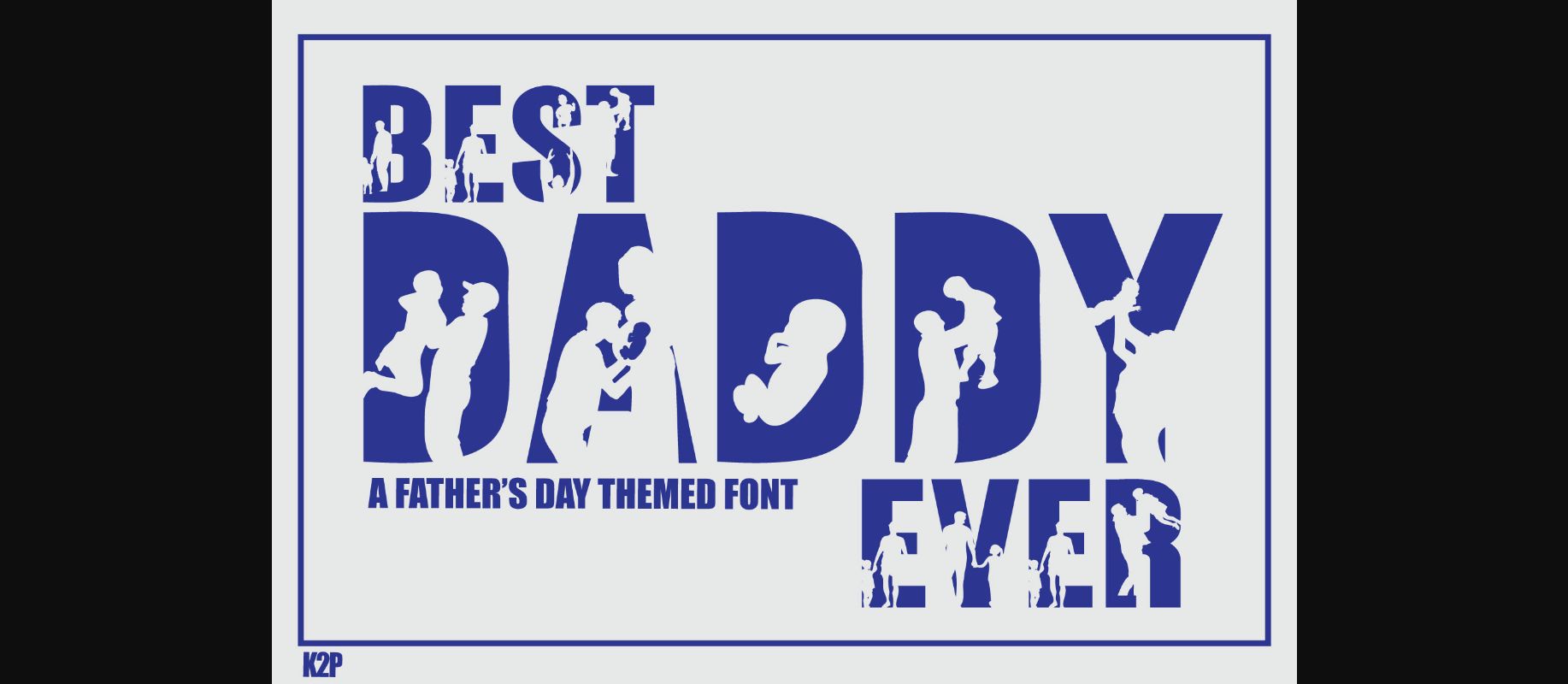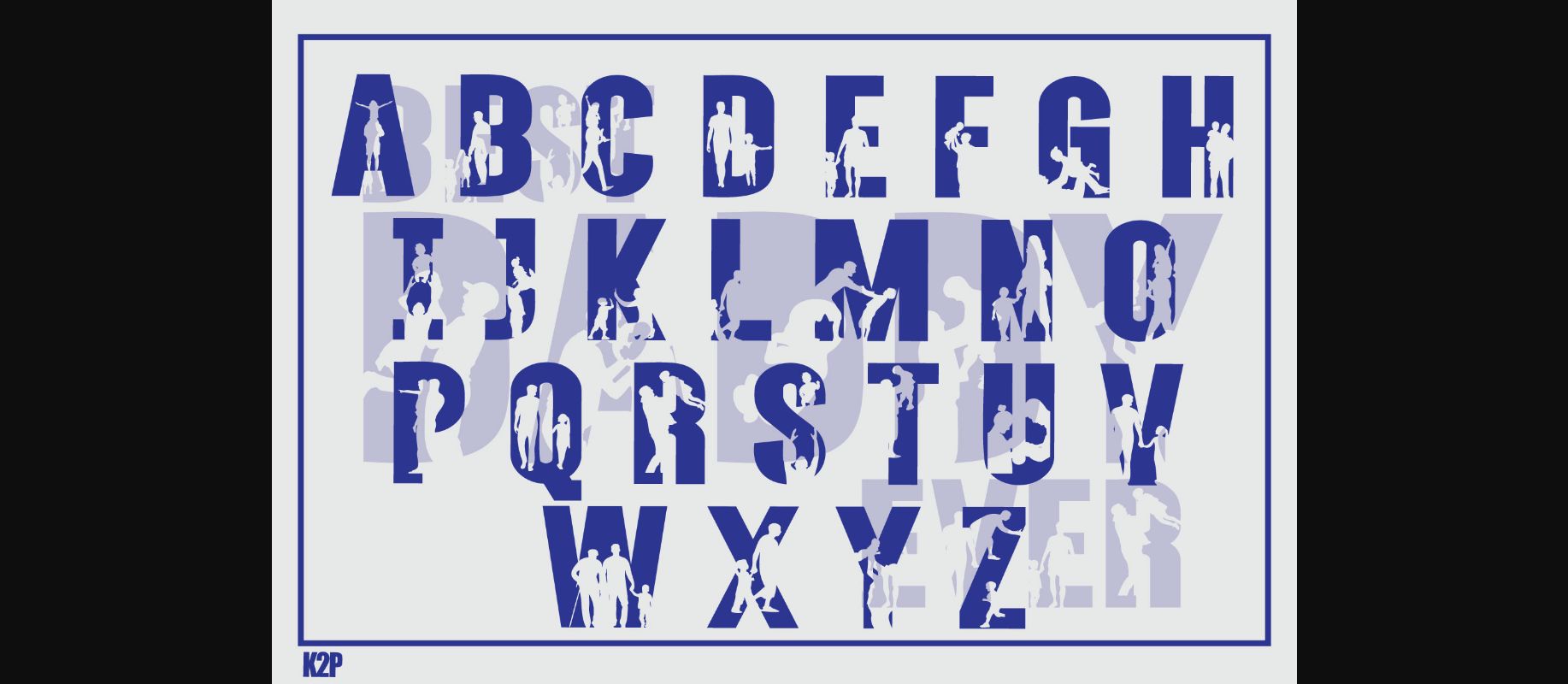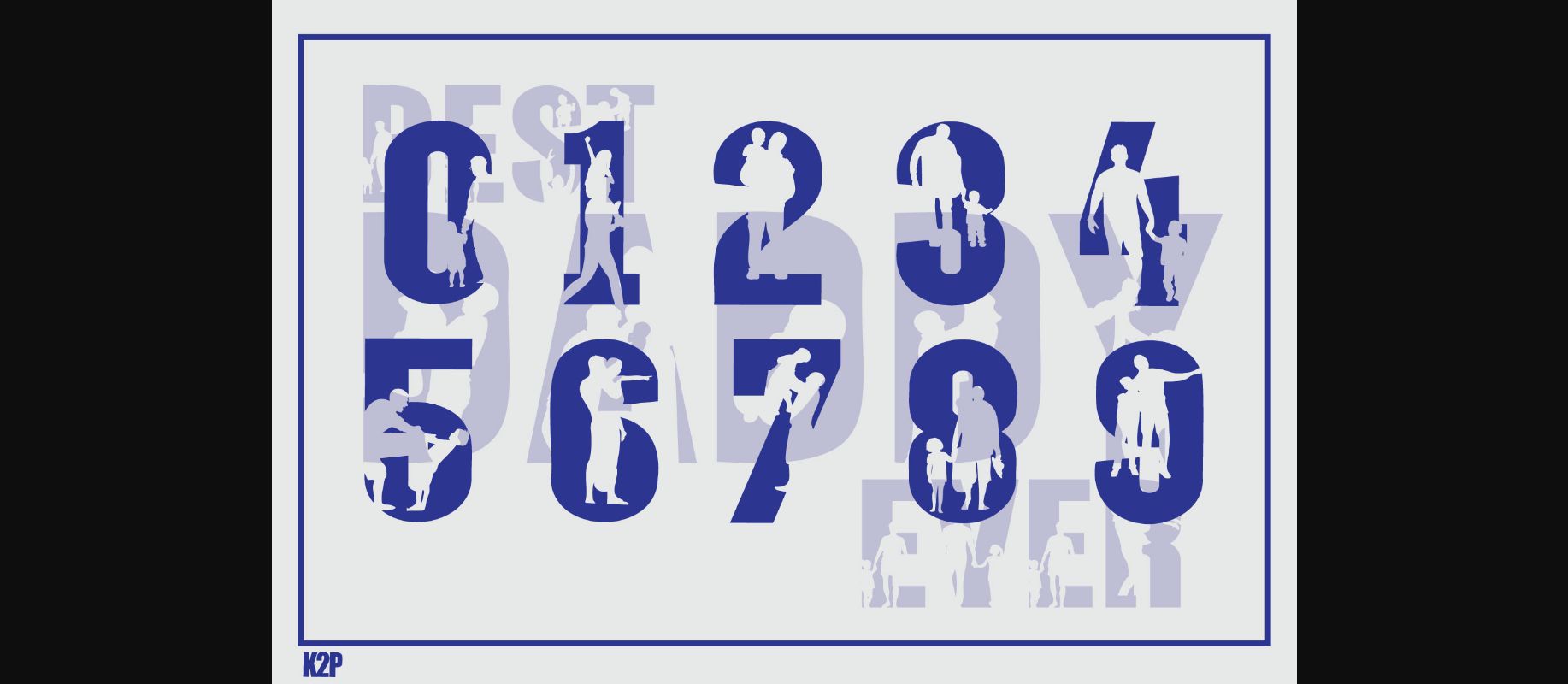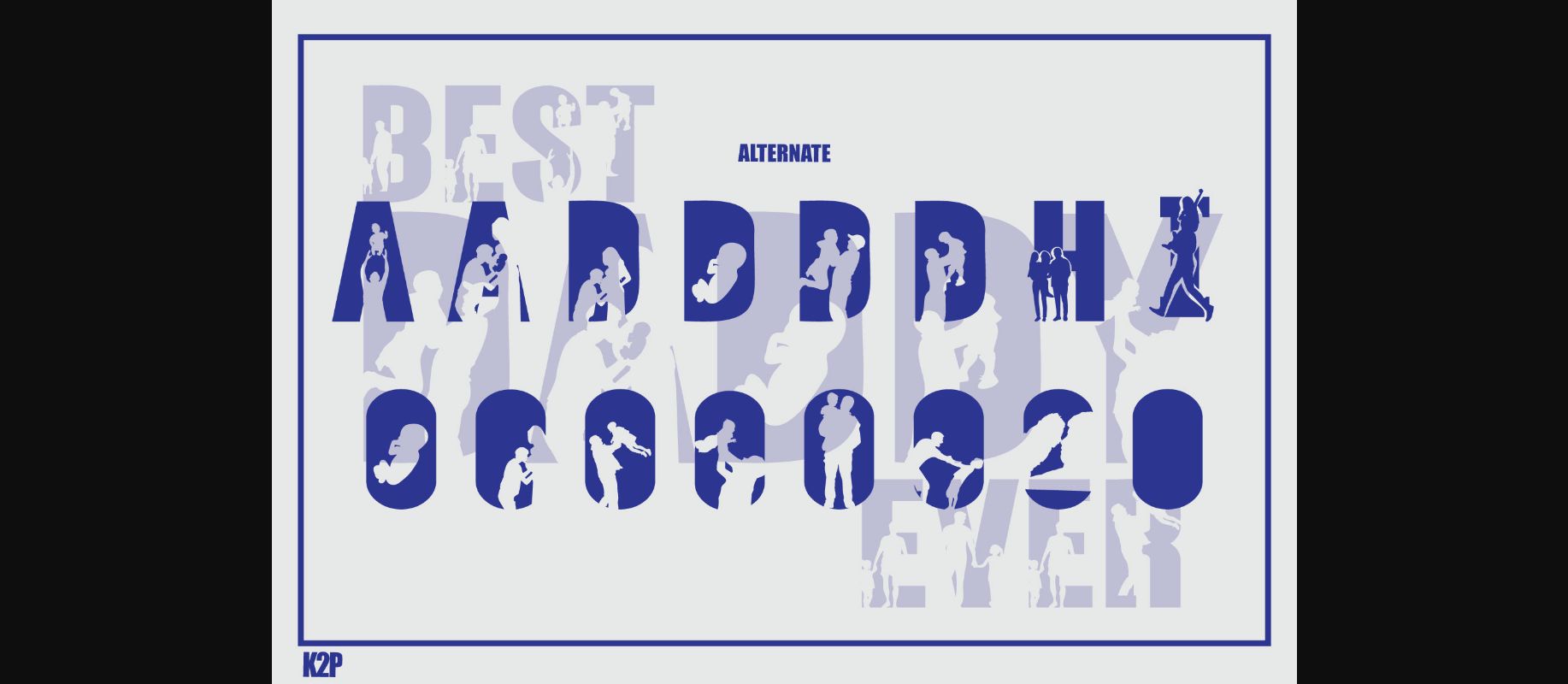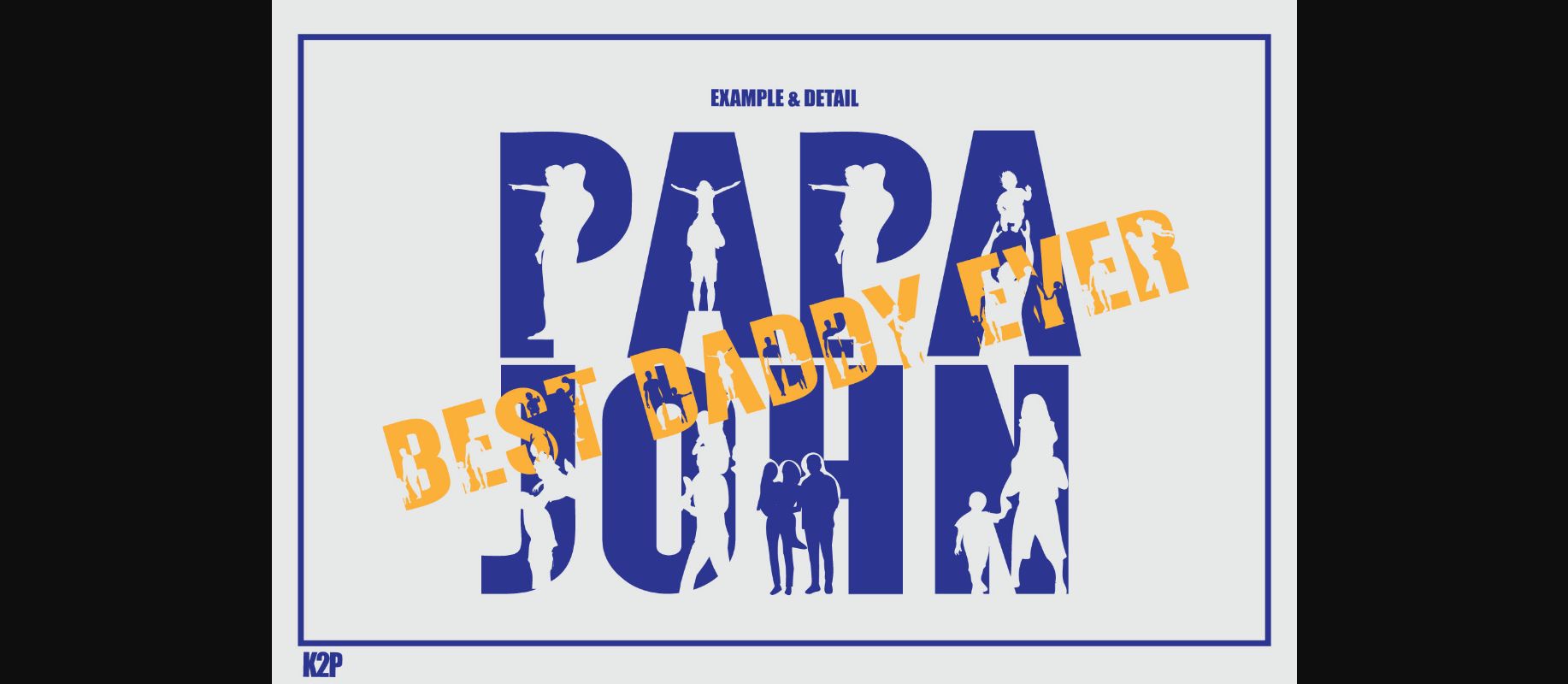
Best Daddy Ever Font
About Best Daddy Ever Font
Create gorgeous and timeless designs with Best Daddy Ever, an interesting and unique decorative font. Fall in love with its incredibly stylish look and use it for logos, quotes, invitations, business cards, PowerPoint presentations, and more!